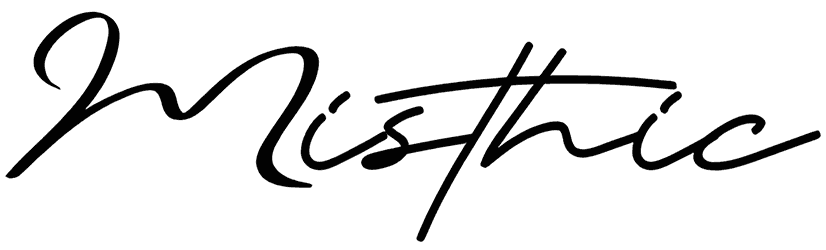
Misthic Font
Conveying an artistic and modern vibe is not a hard nut with a handwritten font like Misthic. This unique font is similar to daily handwriting used and can induce a matey mood in viewers. Misthic is nice for multipurpose usages such as handwritten quotes, flyers, invitation cards, and much more creative designs with short or long text. Try it and take delight.